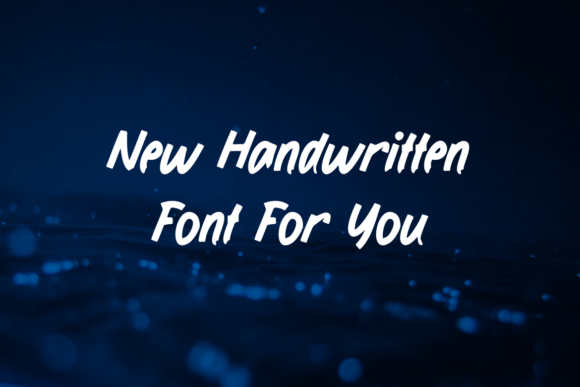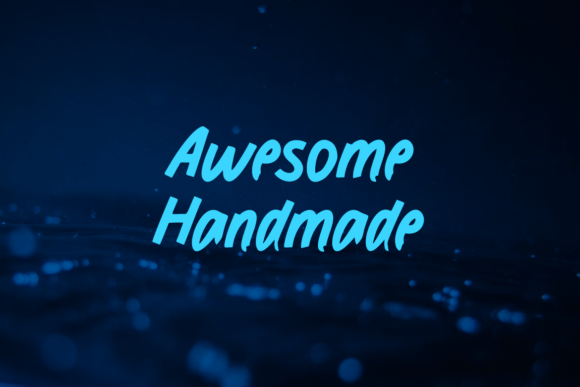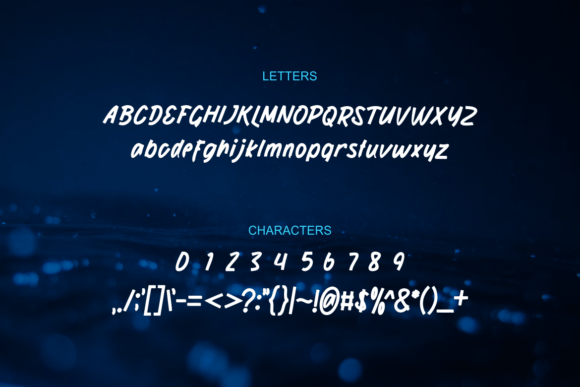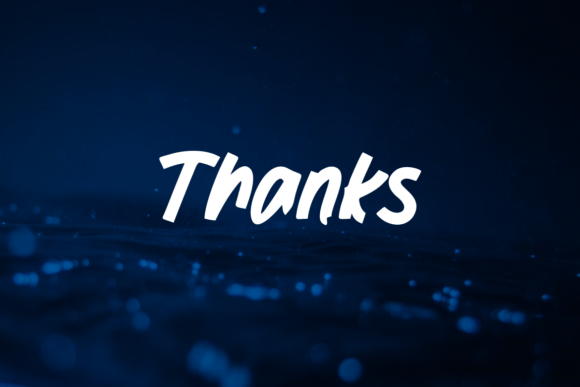
Introducing Ghamplex Font: The Perfect Blend of Bold and Friendly
Are you tired of using the same old fonts in your designs? Look no further than Ghamplex Font, a bold handwritten font that is sure to add a personal touch to any project. With its thick letters and natural, friendly vibe, Ghamplex is perfect for designers and crafters who want to create unique and eye-catching designs.
What Makes Ghamplex Font So Special?
Ghamplex Font is a one-of-a-kind font that stands out from the crowd. Its bold, handwritten letters are carefully crafted to give a sense of warmth and character, making it perfect for a variety of design projects. Whether you’re creating invitations, posters, or social media graphics, Ghamplex Font is sure to make your designs pop.
The Benefits of Using Ghamplex Font
So why choose Ghamplex Font for your next design project? Here are just a few benefits of using this amazing font:
- Personal Touch: Ghamplex Font’s thick letters and handwritten style give your designs a personal touch that’s hard to replicate with other fonts.
- Warmth and Character: This font is perfect for adding warmth and character to your designs, making them more engaging and memorable.
- Versatility: Ghamplex Font can be used in a variety of design projects, from invitations and posters to social media graphics and more.
- Easy to Read: Despite its bold style, Ghamplex Font is easy to read, making it perfect for designs where you want to make a statement without sacrificing legibility.
How to Use Ghamplex Font in Your Designs
Using Ghamplex Font in your designs is easy. Here are a few tips to get you started:
- Pair it with Other Fonts: Ghamplex Font pairs well with other fonts, so don’t be afraid to experiment with different combinations.
- Use it for Headlines: Ghamplex Font is perfect for headlines and titles, where its bold style can really make an impact.
- Add Some Color: Ghamplex Font looks great in a variety of colors, so don’t be afraid to add some color to your designs.
Who Can Benefit from Ghamplex Font?
Ghamplex Font is perfect for a variety of designers and crafters, including:
- Graphic Designers: Ghamplex Font is a great addition to any graphic designer’s toolkit, and can be used in a variety of design projects.
- Social Media Managers: This font is perfect for social media graphics, where its bold style can really make an impact.
- Crafters: Ghamplex Font is also great for crafters, who can use it to create unique and eye-catching designs for their projects.
In conclusion, Ghamplex Font is a bold handwritten font that looks natural and friendly. Its thick letters give a personal touch, making it perfect for invitations, posters, and any design where you want to add warmth and character. With its versatility, ease of use, and unique style, Ghamplex Font is sure to become a favorite among designers and crafters. So why wait? Download Ghamplex Font today and start creating unique and eye-catching designs that will leave a lasting impression.
Key Features of Ghamplex Font
- Bold Handwritten Style: Ghamplex Font features a bold, handwritten style that’s perfect for making a statement.
- Thick Letters: The font’s thick letters give it a personal touch that’s hard to replicate with other fonts.
- Natural and Friendly Vibe: Ghamplex Font has a natural, friendly vibe that’s perfect for designs where you want to add warmth and character.
- Easy to Read: Despite its bold style, Ghamplex Font is easy to read, making it perfect for designs where you want to make a statement without sacrificing legibility.
FAQs About Ghamplex Font
- What is Ghamplex Font? Ghamplex Font is a bold handwritten font that looks natural and friendly.
- What is Ghamplex Font used for? Ghamplex Font can be used in a variety of design projects, including invitations, posters, social media graphics, and more.
- Is Ghamplex Font easy to read? Yes, despite its bold style, Ghamplex Font is easy to read.